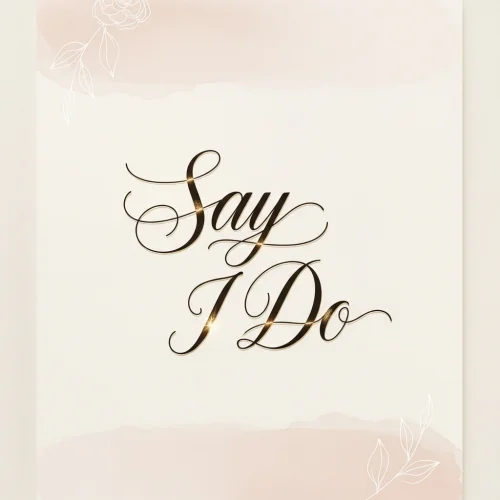
Elegant lettering for your big day
AI-powered wedding font generator to craft elegant, downloadable wedding fonts for invitations, signage, and social posts.
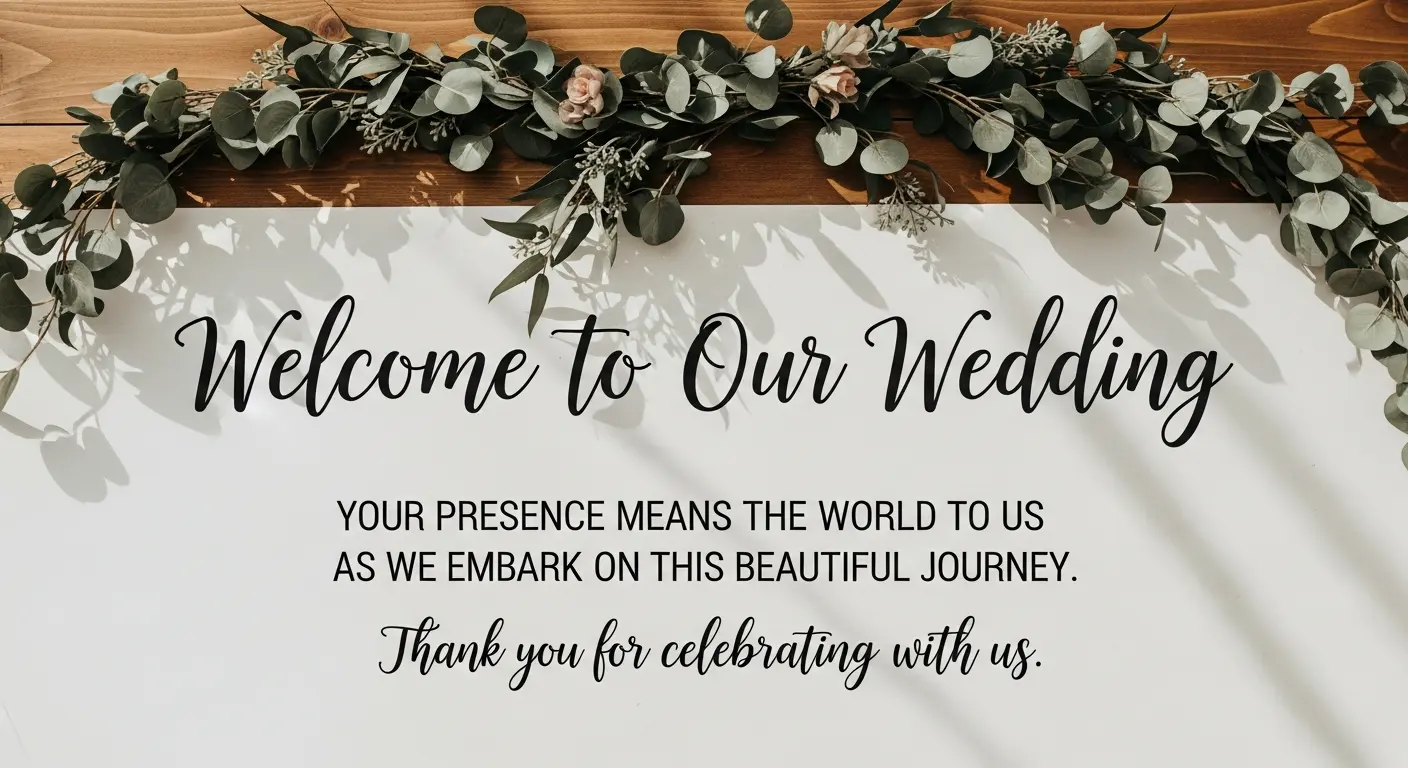
Bring your ideas to life with beautifully crafted wedding fonts that match classic and modern themes. Our AI Wedding Font Generator makes it effortless to explore, customize, and download unique wedding font styles for invites, signage, and social posts.
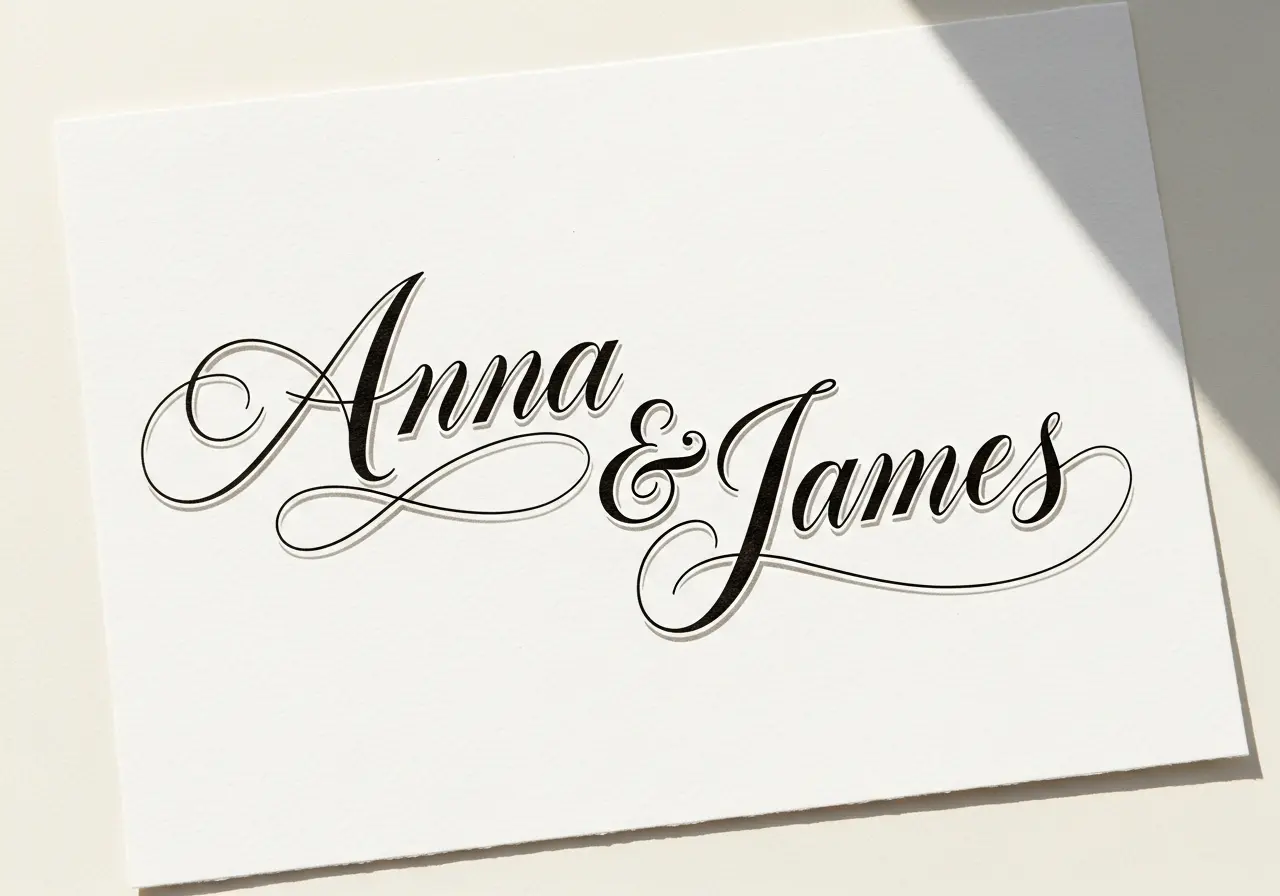
This timeless calligraphic wedding font features flowing strokes, elegant swashes, and refined ligatures. Ideal for formal invitations, vow books, and sophisticated stationery where classic wedding font design is required.
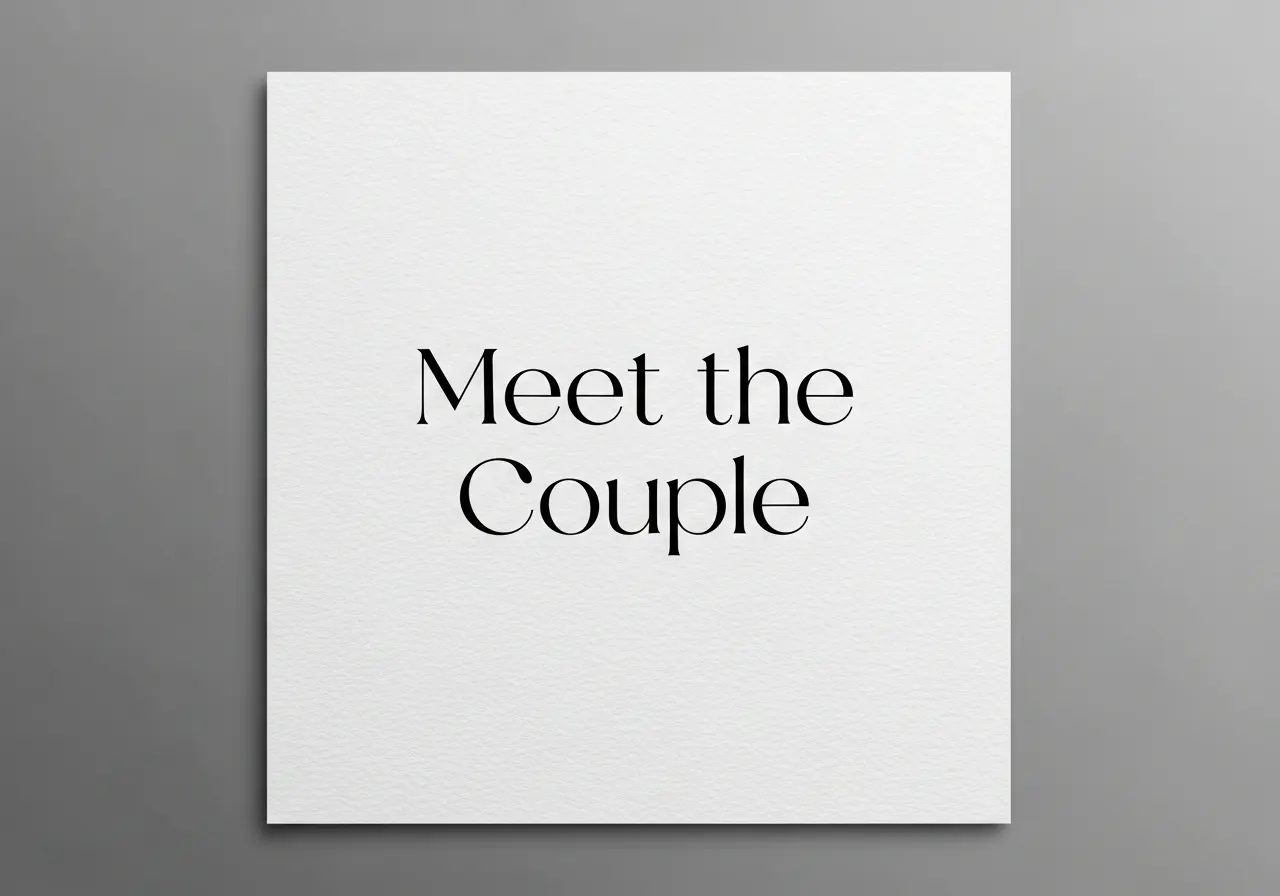
A pared-back wedding font with geometric proportions and light strokes. Perfect for contemporary invites, wedding websites, and minimalist signage where a modern wedding font aesthetic is desired.
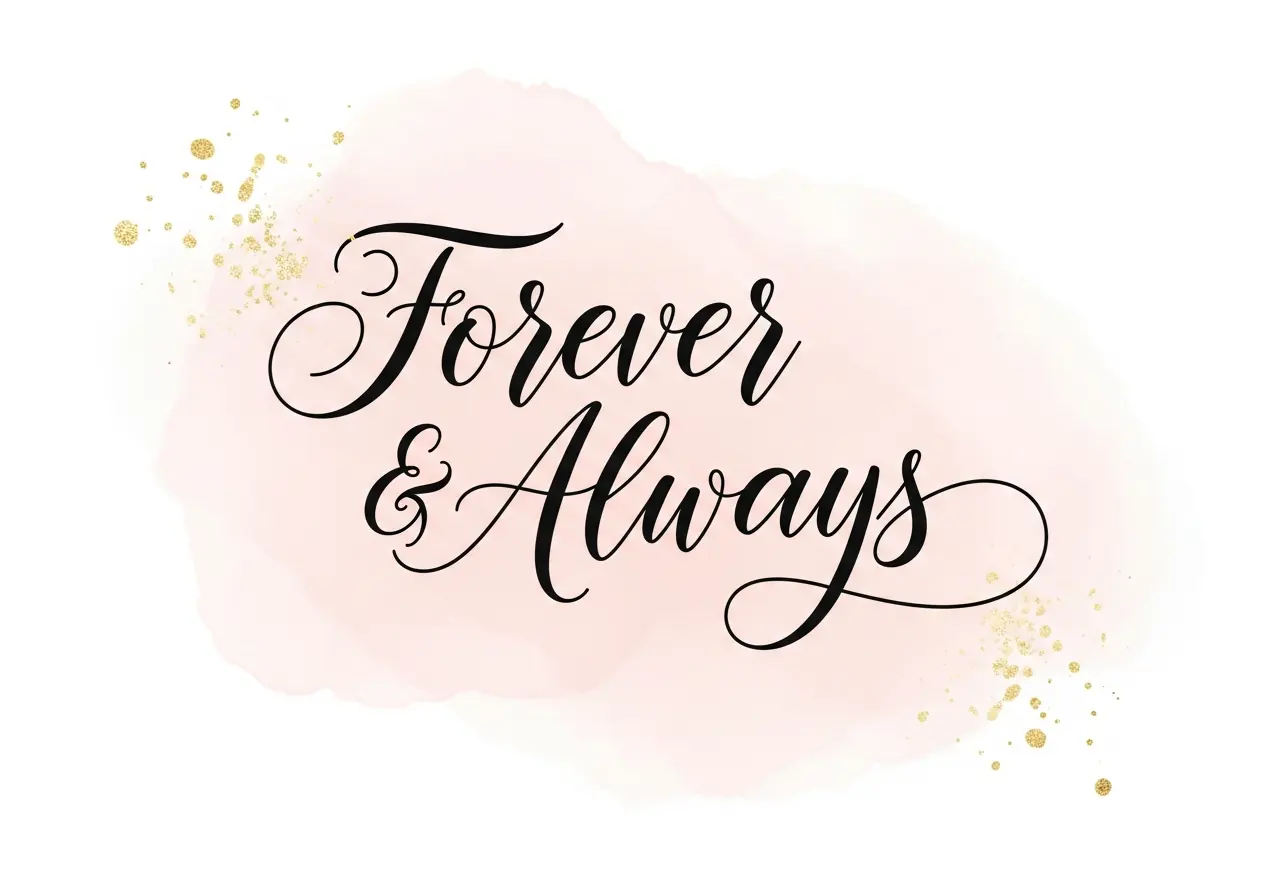
An ornate romantic script wedding font with sweeping flourishes and decorative tails. Best suited for romantic invitation headers, signage, and photo overlays to convey dreamy wedding font style.
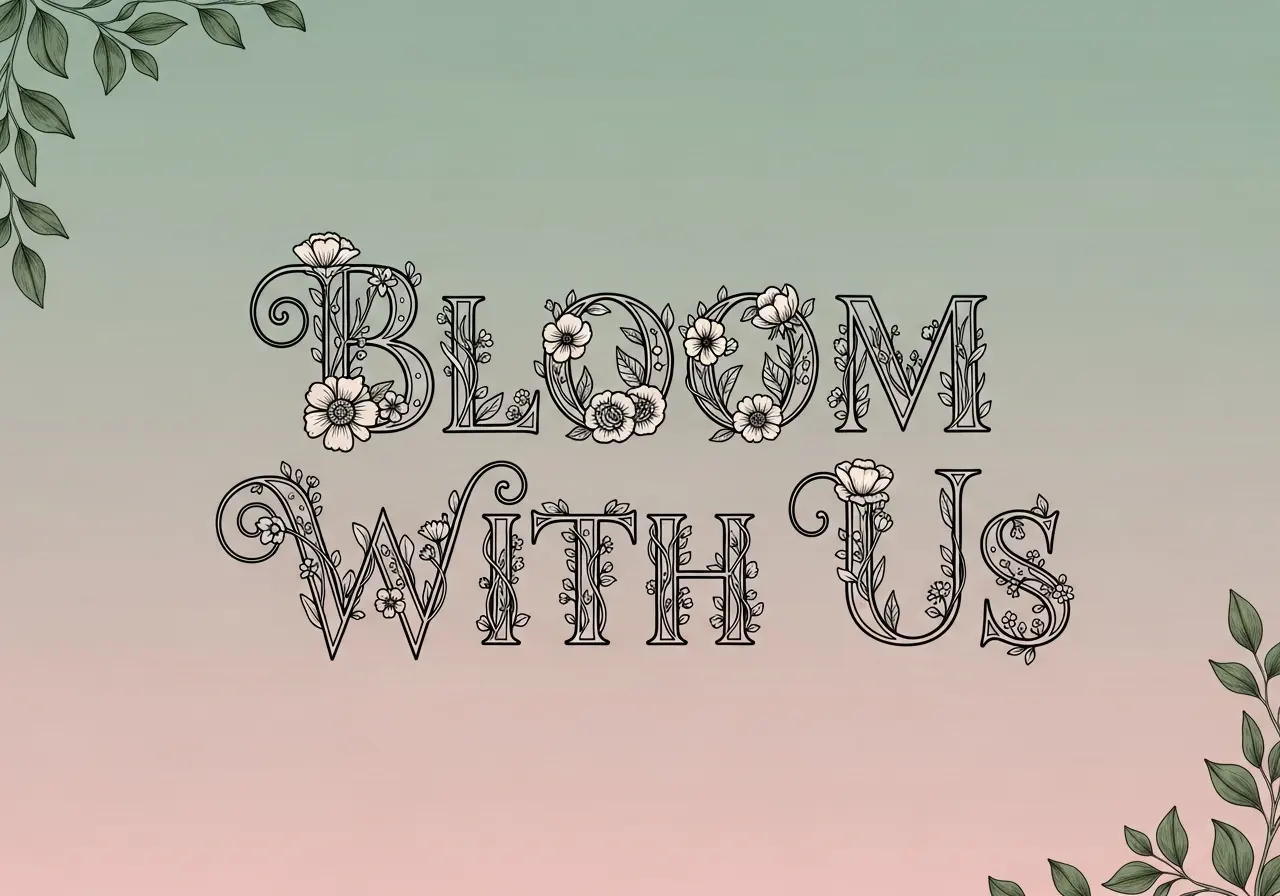
This decorative wedding font weaves floral motifs into letterforms, adding botanical accents to each character. Perfect for garden weddings, floral stationery, and romantic signage that requires an embellished wedding font design.
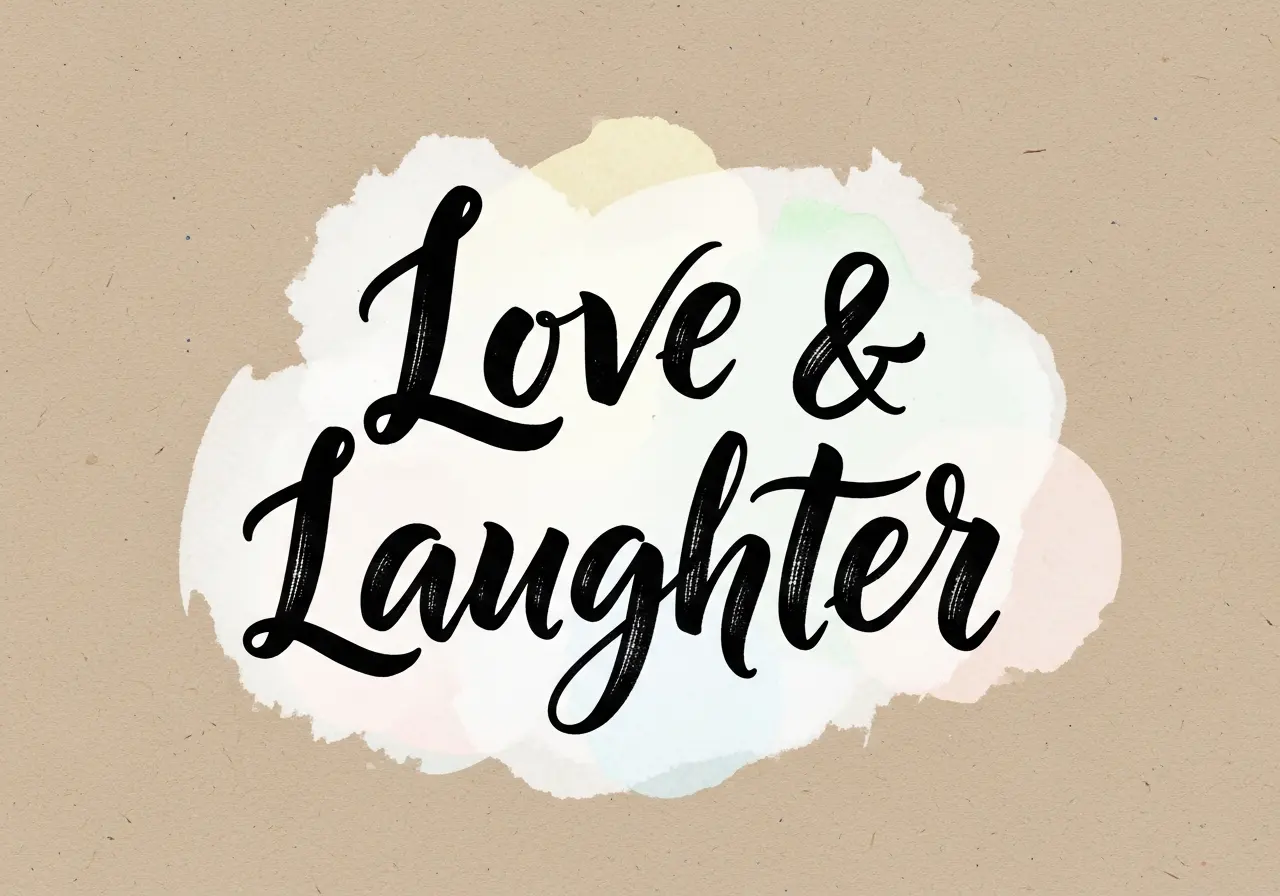
A lively brush-style wedding font with textured strokes and organic rhythm. Ideal for casual invitations, welcome signs, and social graphics that need a personal, handcrafted wedding font appearance.
A luxurious wedding font with metallic gold foil texture and refined letterforms. Ideal for upscale invitations, luxury stationery, and wedding menus needing a premium wedding font finish.
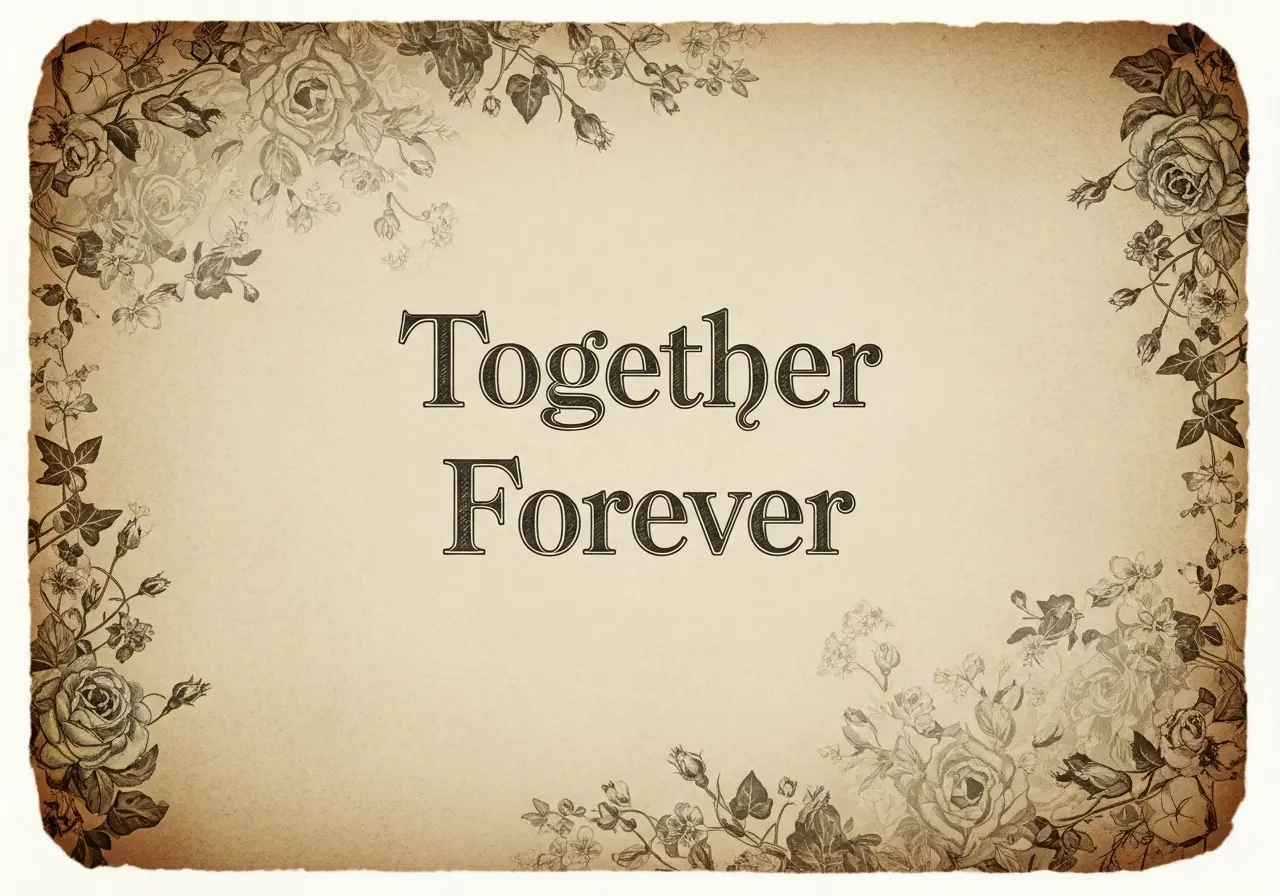
This vintage serif wedding font combines classic serifs and charming ornamentation for a nostalgic feel. Use it for retro-inspired invitations, save-the-dates, and wedding programs needing a classic wedding font vibe.
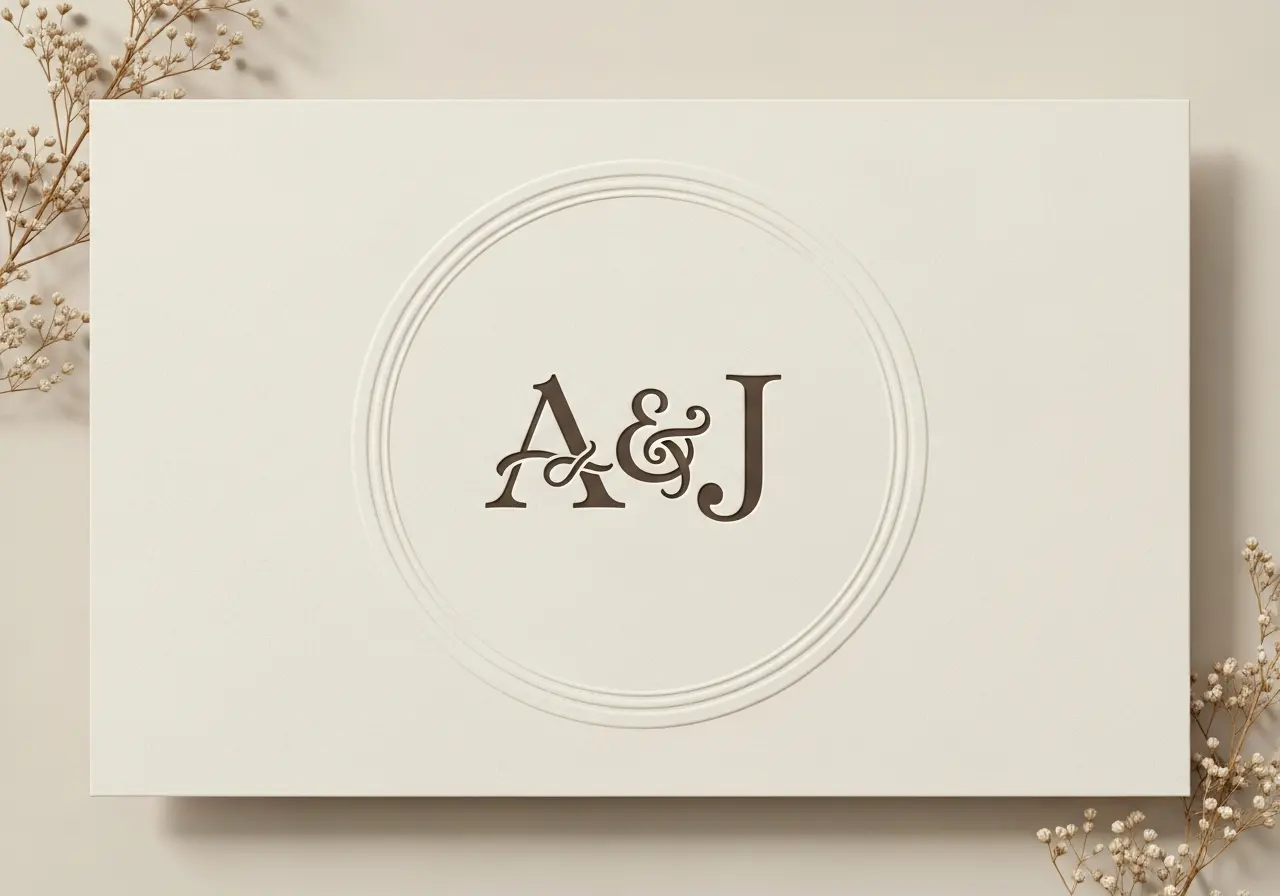
A refined monogram wedding font set designed for initials and monograms. Use for signage, custom stamps, and stationery seals where a distinctive wedding font monogram is needed.
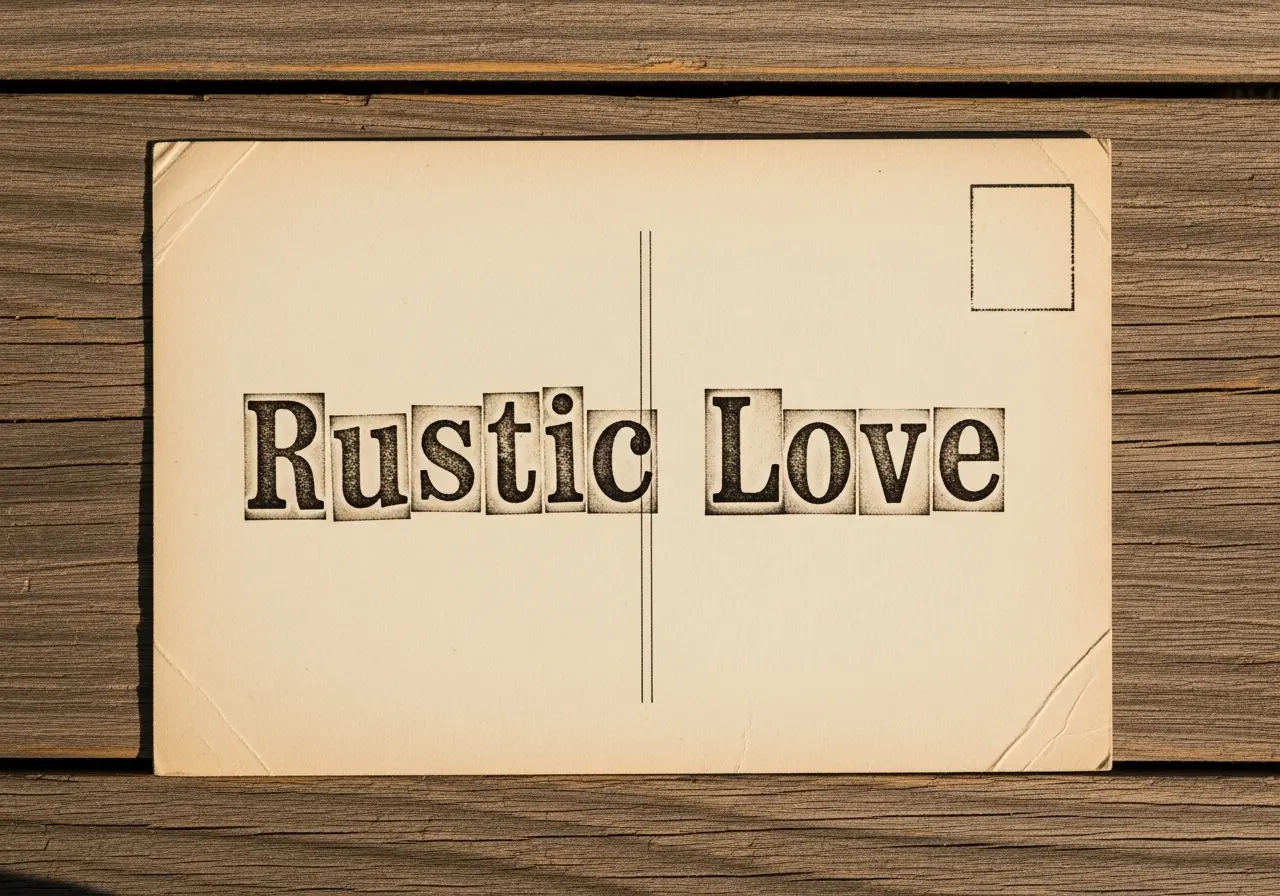
A rustic hand-stamped wedding font with imperfect edges and tactile ink texture. Suited for barn weddings, rustic signage, and DIY stationery where an authentic wedding font texture matters.